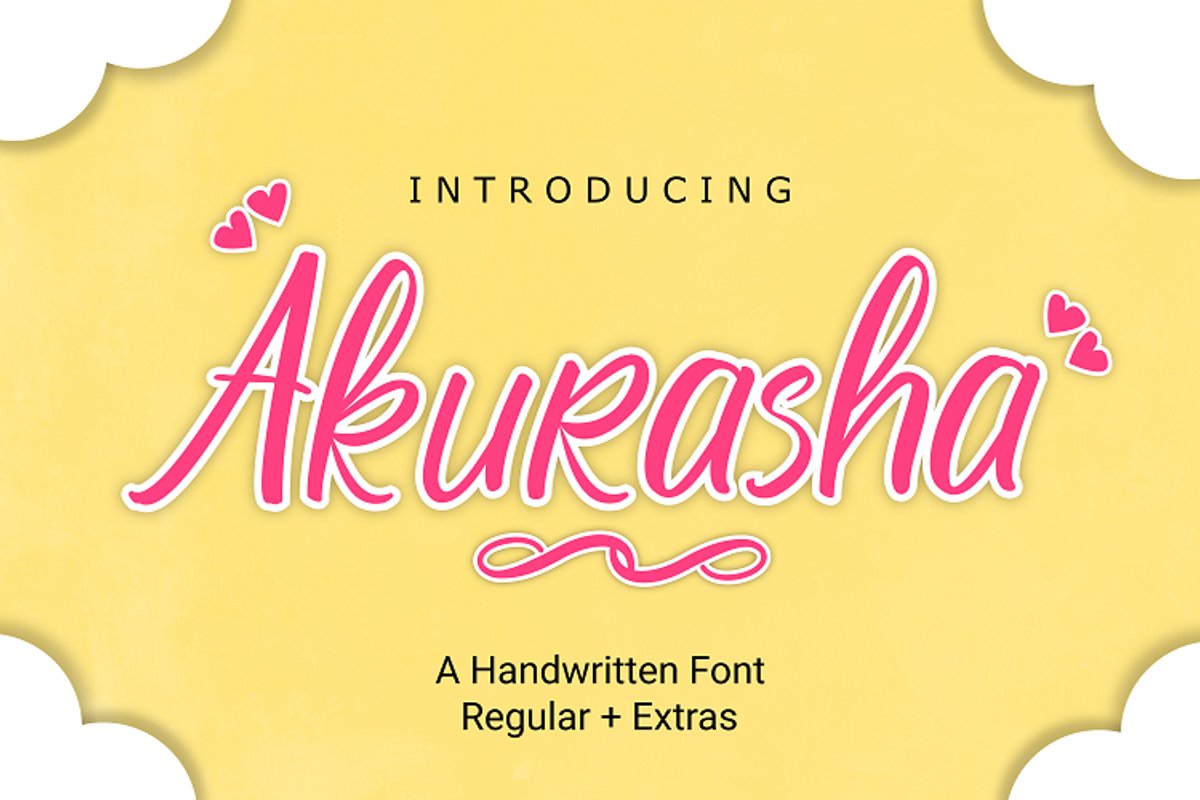
Akurasha is a sweet handwritten font. It has a elegant, and modern look which can be used for logos, branding, invitations, stationary, wedding designs, social media posts, and every other design.